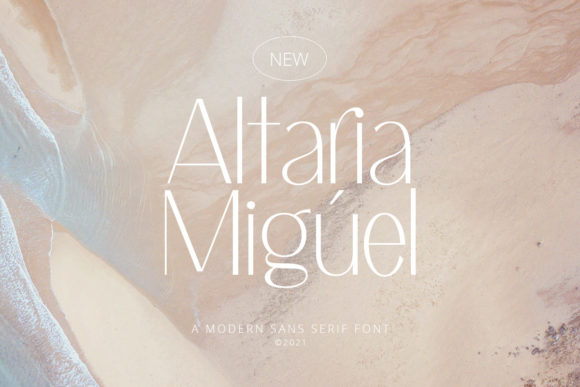
In a world where first impressions matter, your designs deserve the power to captivate and enamor. Enter Altaria Miguel, the font that transforms your creative visions into enchanting realities. Crafted with meticulous precision, this sans serif font embodies elegance and charm, making it the perfect choice for designers seeking to make a lasting impact.
Altaria Miguel's slender strokes, reminiscent of a dancer's graceful movements, bring a touch of sophistication to your designs. Its delicate curves and clean lines exude a sense of understated luxury, adding a touch of timeless allure to your projects. Whether you're creating wedding invitations, greeting cards, or any design that calls for a romantic and personalized touch, Altaria Miguel will effortlessly elevate your creations.
Step into a realm of boundless creativity with Altaria Miguel, where your imagination takes center stage. Its versatility knows no bounds, seamlessly adapting to a myriad of design styles. Unleash your inner artist and let your designs blossom with this font's captivating presence. From logos that exude professionalism to social media posts that radiate charm, Altaria Miguel will transform your designs into captivating works of art.
Experience the joy of creating with Altaria Miguel, a font that ignites your passion for design. Its intuitive design and user-friendly interface make it a dream to work with, allowing you to focus on your creative flow without any technical hiccups. Immerse yourself in a world of design possibilities and let Altaria Miguel guide you towards design excellence.